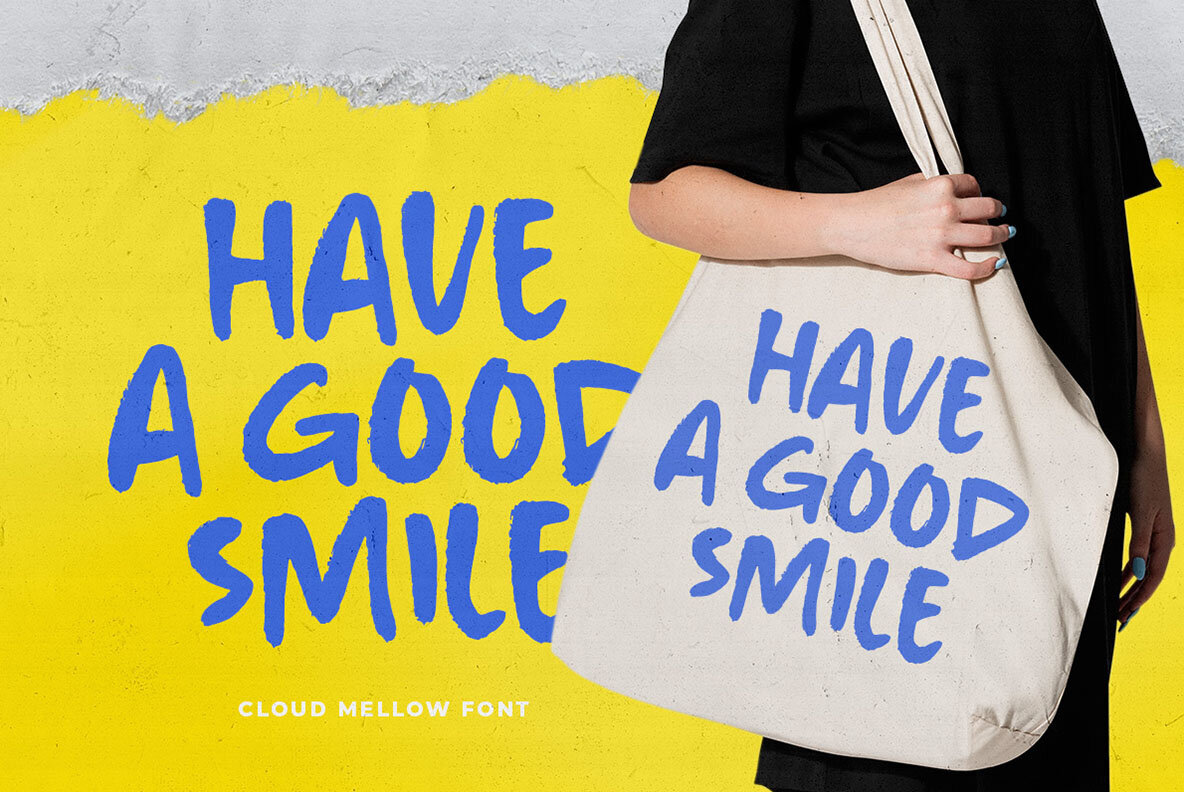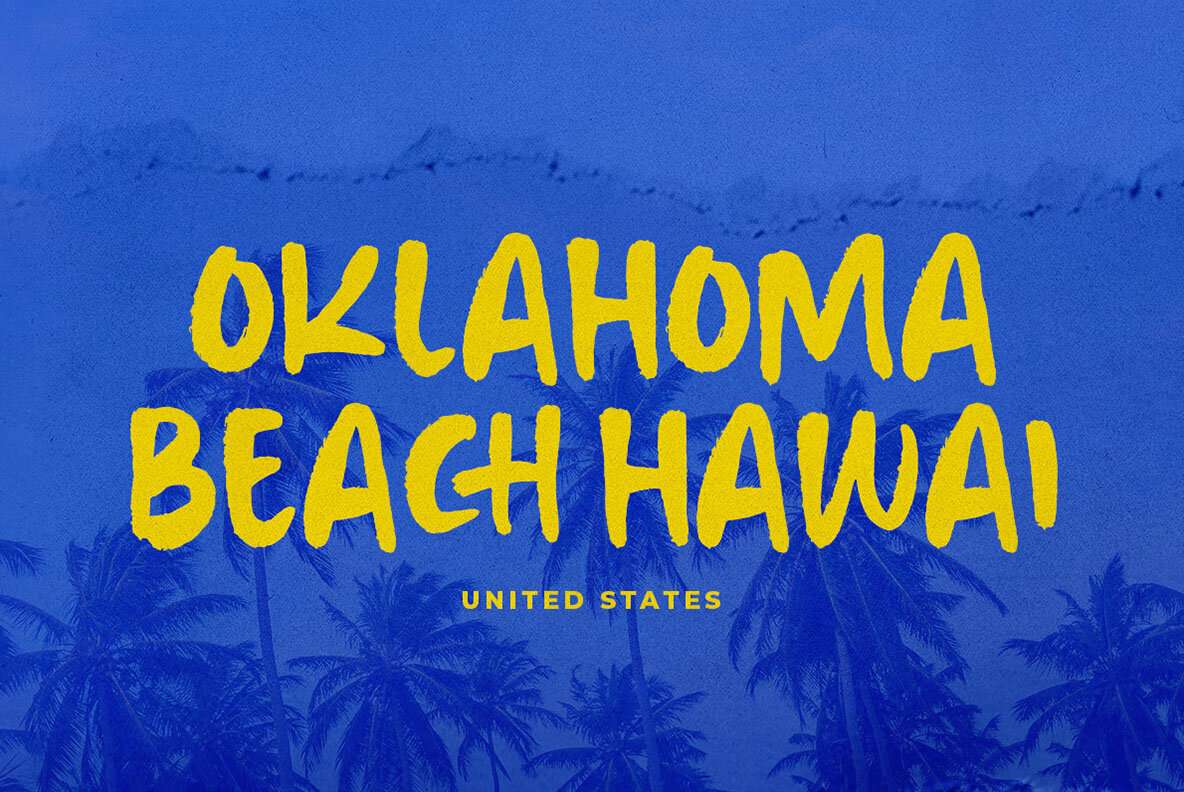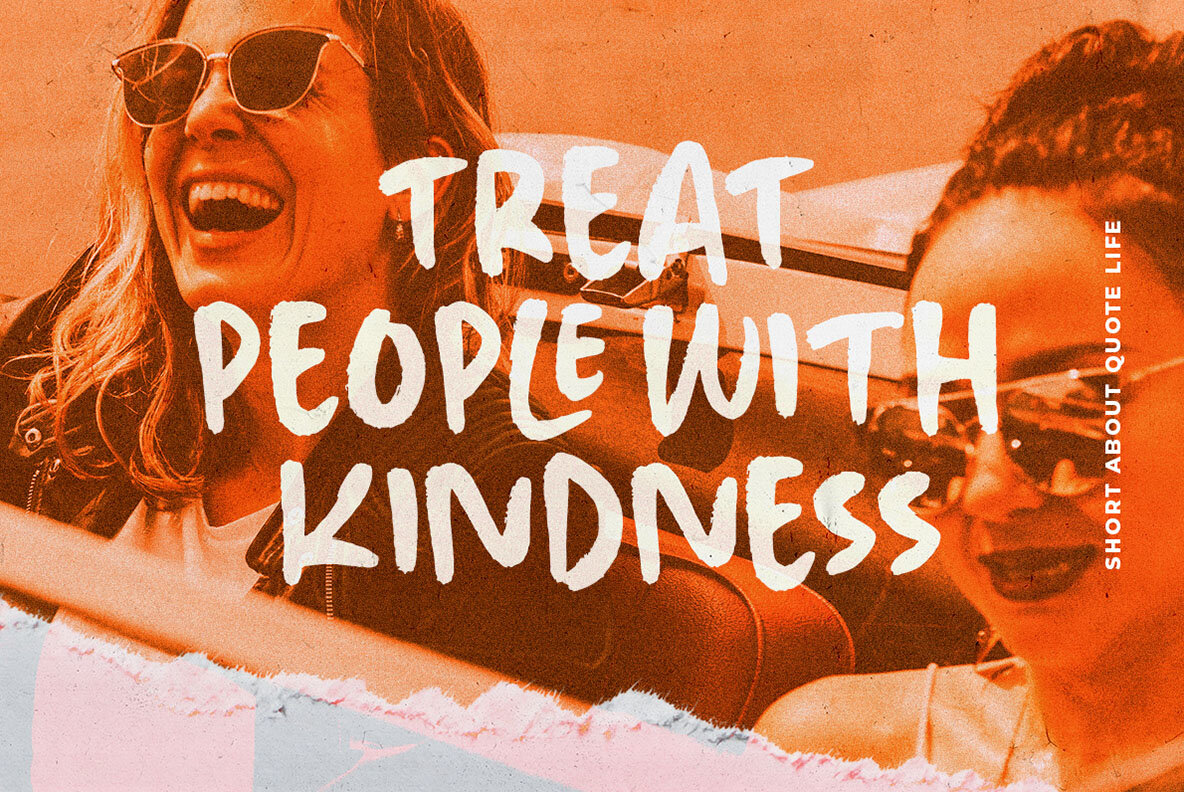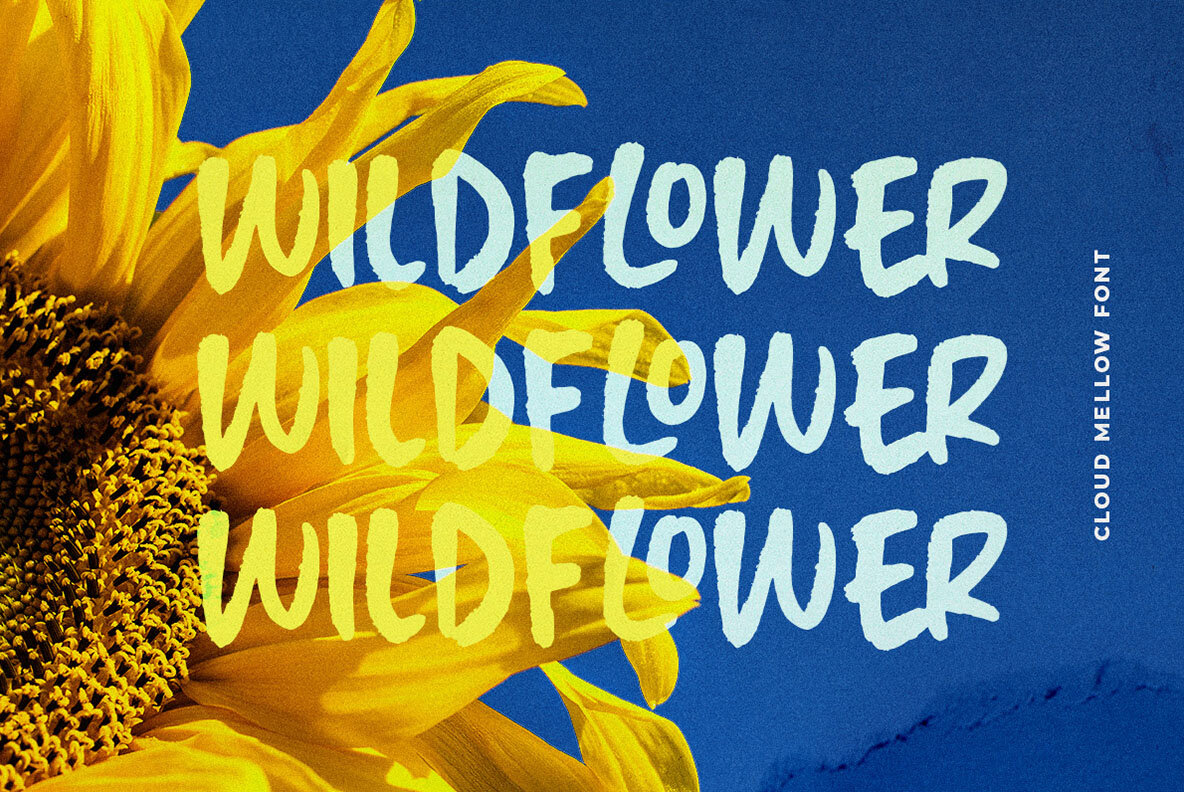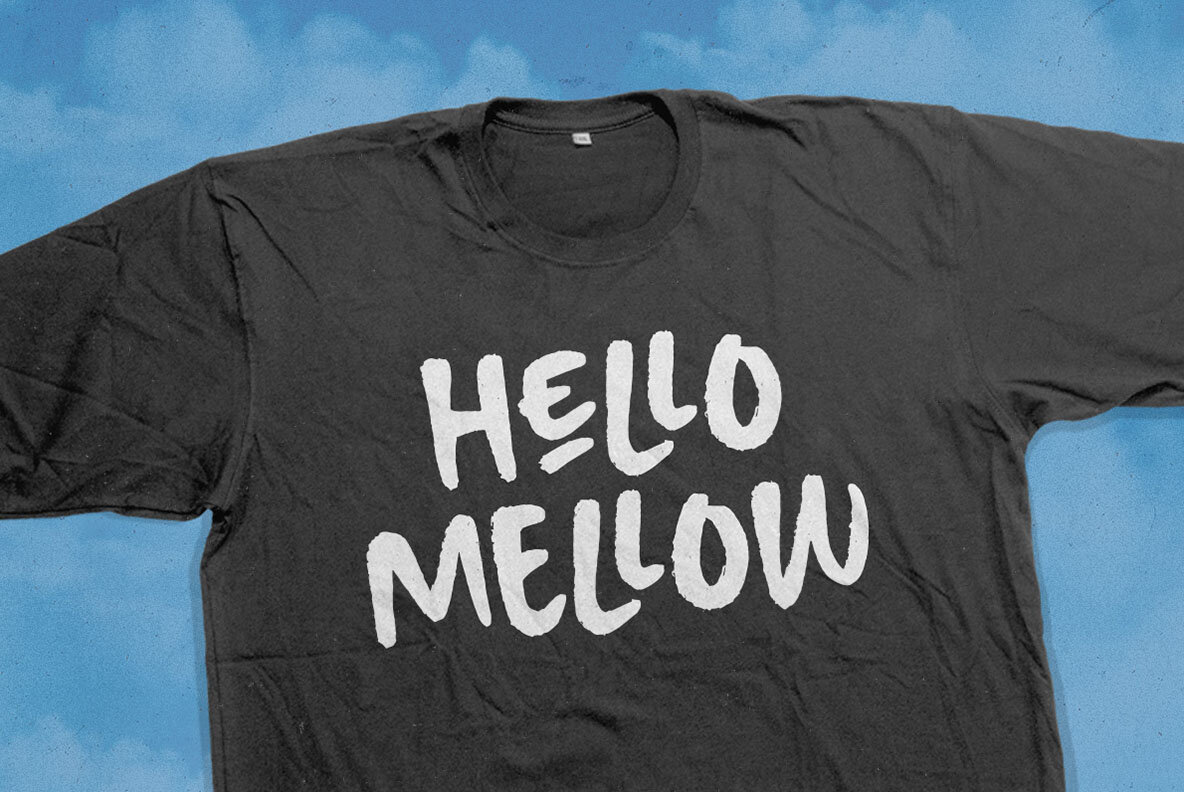
Cloud Mellow Font
Cloud Mellow Medium
Cloud Mellow is a playful handwritten brush font designed with rough edges, perfect for making a bold statement in headlines, logos, and signatures. Its casual and fresh style infuses your designs with a unique character, ensuring they stand out effortlessly. This versatile font includes uppercase and lowercase letters, numbers, and punctuation, as well as alternates and ligatures to provide flexible design options.